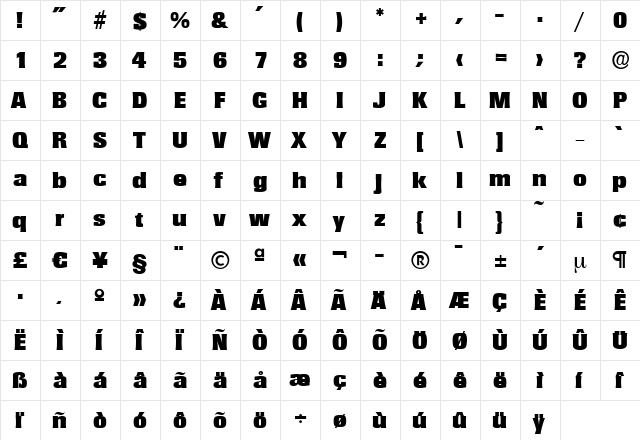
WalterBecker-Black Regular
Design Context for WalterBecker-Black Typeface
WalterBecker-Black offers clean, dependable letterforms without strong stylistic allegiance, making it a practical choice for designers who need flexibility.
Pro Tip: Use WalterBecker-Black in both headline and body roles to test its range before committing to a single application.